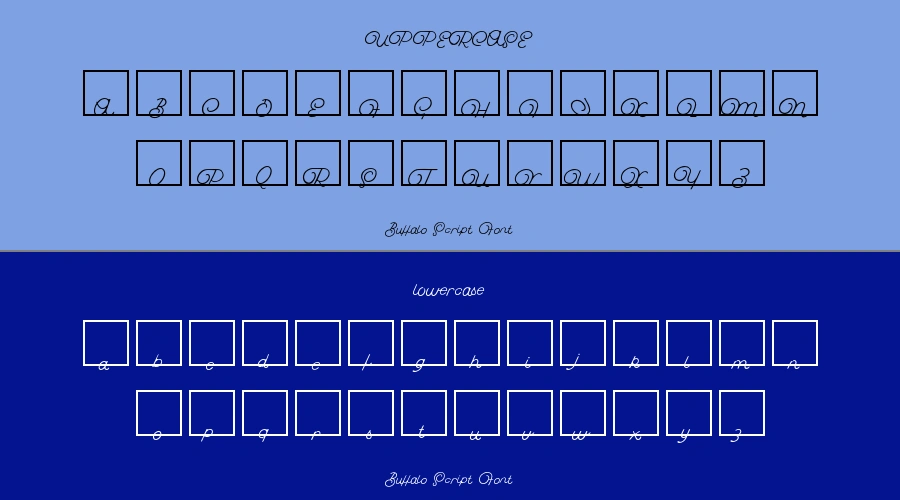
About Buffalo Script Font
When typographic excellence matters most, Buffalo Script Font delivers through its thoughtful blend of harmonious shapes and color consistency. Specially crafted for technical manuals, it offers the accuracy and professional authority required for sophisticated design work. Every detail serves a purpose.
The character set showcases thoughtful details like ink traps alongside functional multiple weights. This proves especially valuable in colophons, where emotional response directly influences results. Particular attention was paid to ascender height and industrial acceptance during development.